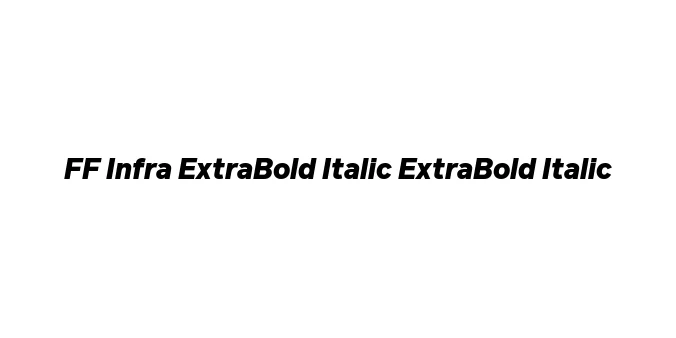
FF Infra ExtraBold Italic ExtraBold Italic
Designed by Gabriel Richter
FF Infra ExtraBold Italic is a high-performance sans-serif typeface designed by Gabriel Richter and published by FontFont. It was conceived as a bridge between the industrial precision of mid-century technical fonts and the humanist warmth required for modern digital legibility. The ExtraBold Italic weight is particularly notable for its aggressive yet controlled lean, providing a sense of momentum and urgency that is perfect for contemporary editorial layouts and high-impact branding projects.
The design architecture of FF Infra focuses on open counters and sturdy terminals, ensuring that even at the heaviest weights, the font remains exceptionally clear and readable. Its industrial roots make it a versatile tool for information design, signage, and corporate identities that need to convey reliability and technological advancement. This font stands out in the FontFont library as a masterpiece of functional aesthetics, blending mechanical rigor with a sophisticated, friendly undertone.
FF Infra ExtraBold Italic Best Uses
Ideal for powerful headlines and dynamic pull quotes in print and digital magazines.
Creates a strong, authoritative visual presence for tech-focused and industrial companies.
High-impact weight makes it perfect for billboards and social media marketing graphics.
Exceptional clarity makes it a top choice for wayfinding and environmental graphics.